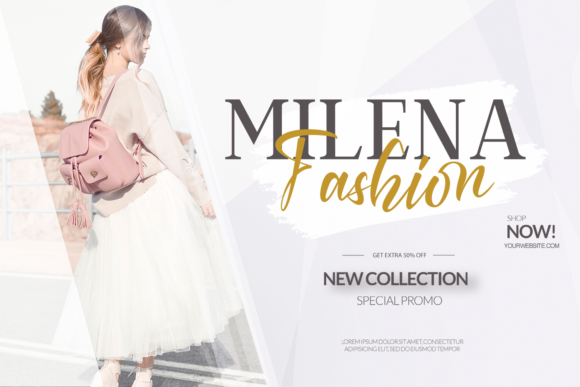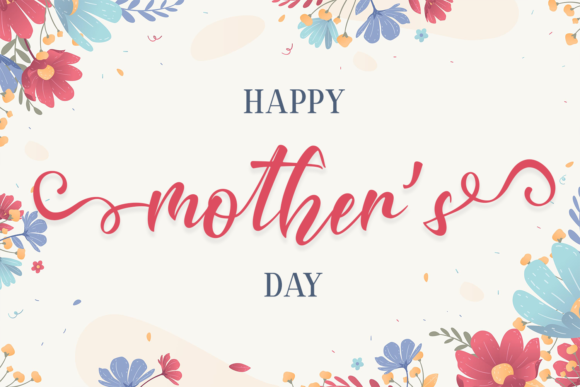
Husband Romantic Font
db-ku.com - Script & Handwritten -- Husband Romantic is a lovely and elegant duo font (script and serif). It can easily be matched to an incredibly large set of projects, so add it to your creative ideas and notice how it makes them stand out!